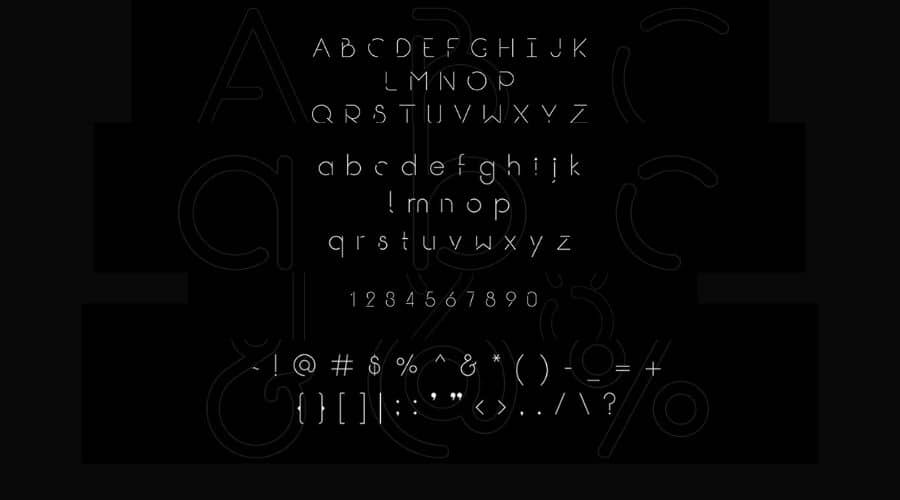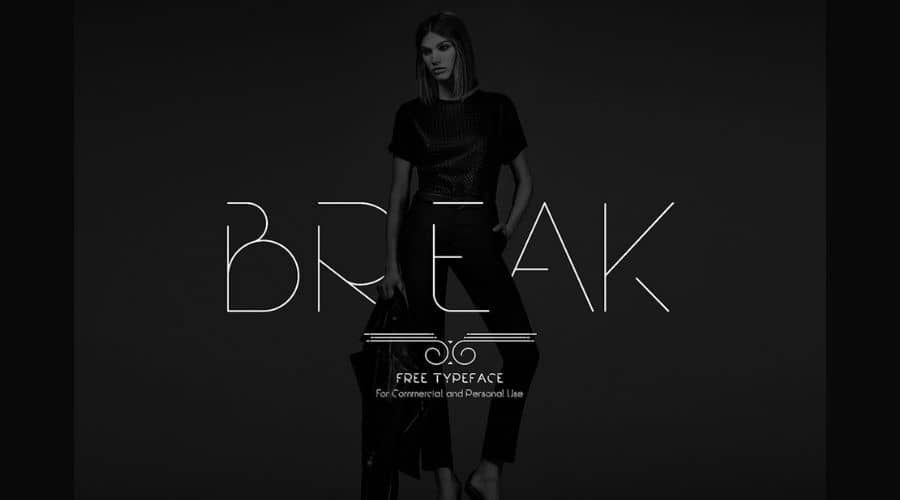
About Break Font
Break is a free sans serif modern style font designed by Rajesh Rajput. With five weights from Bold to ExtraLight, Uppercase, Lowercase, Numerics and symbols, Break is one of the best unique modern free fonts. Free Download is available on our website. Break font free download now.
| Name | Break Font. |
| Style | Sans-Serif. |
| Designer | Rajesh Rajput. |